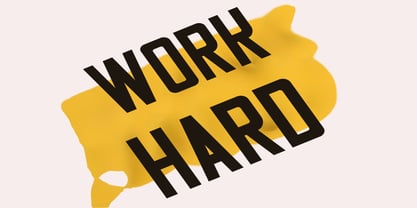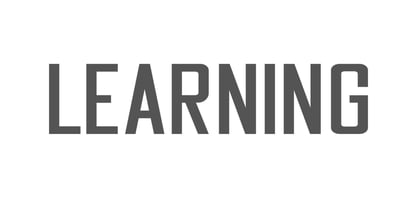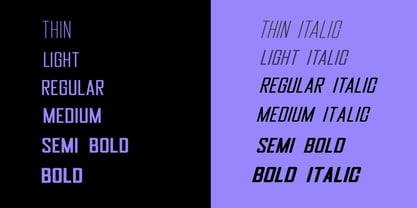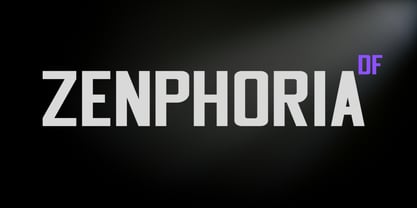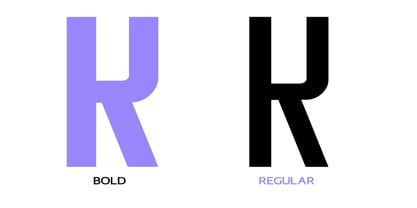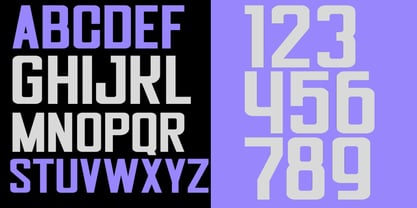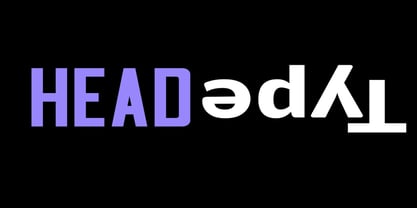
Zenphoria
by Dream Font
The Zenphoria Font Family was designed by Karen Ackoff and published by Dream Font. Zenphoria contains 12 styles and family package options. More about this family
Designers: Karen Ackoff
Foundry: Dream Font